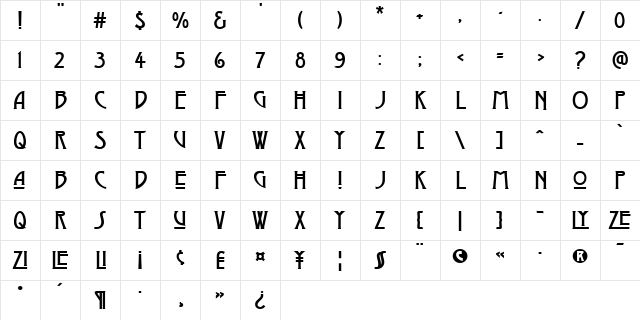
Dyer Normal
Design Context for Dyer
Dyer is a composed and adaptable typeface that performs quietly and consistently across a wide range of design contexts.